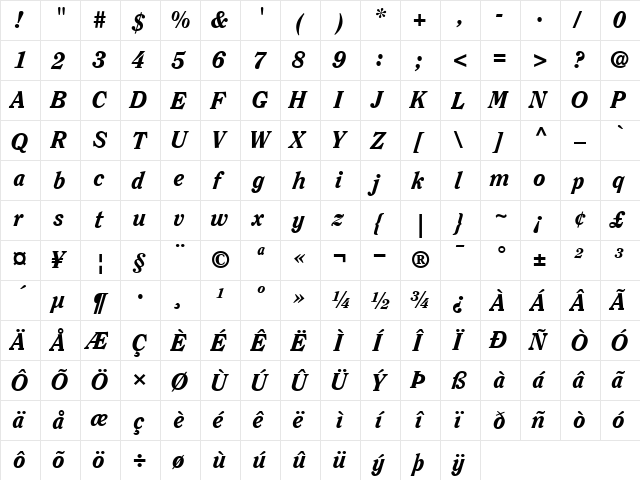
ITCClearface-Heavy HeavyItalic
Design Context for ITCClearface-Heavy Typeface
ITCClearface-Heavy is a composed and adaptable typeface that performs quietly and consistently across a wide range of design contexts. Its italic angle brings a sense of urgency and motion to the letterforms.
Pro Tip: Try ITCClearface-Heavy for annotation and caption copy alongside an upright companion — the contrast in angle creates a dynamic but ordered typographic system.